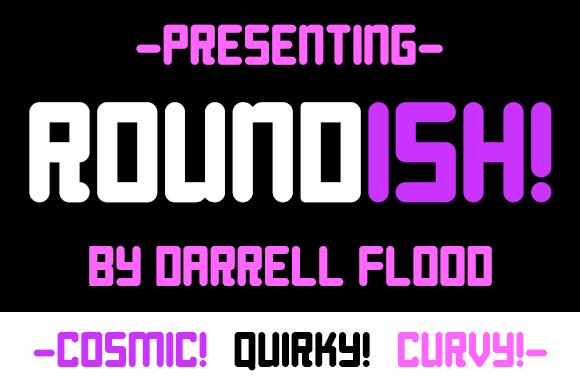
Roundish
Roundish Font
Roundish is a rounded corner font, composed of balloon like tube shapes. This display font is perfect for upbeat, techno themes!